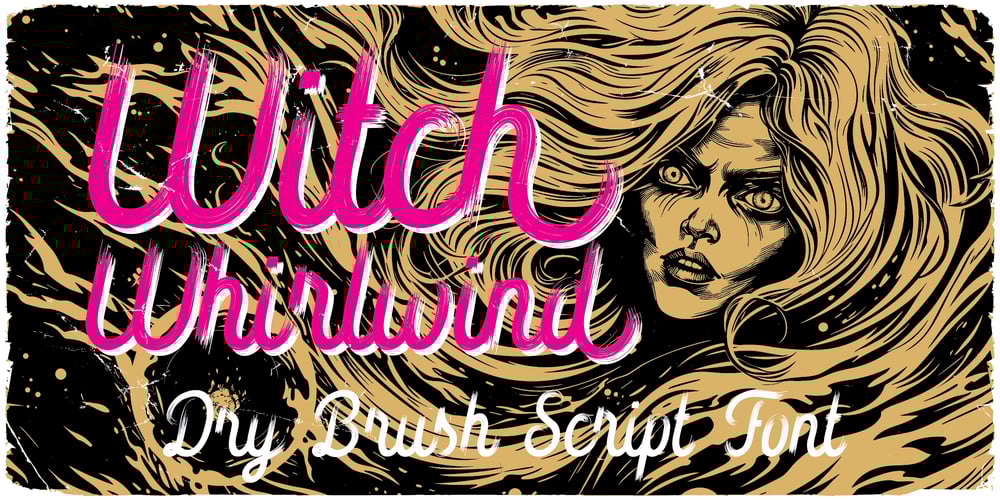
Witch Whirlwind Font Family was designed by Oleg Voznyy and published by Vozzy. Witch Whirlwind contains 1 styles and family package options. Description: Step into the hauntingly nostalgic world of 80s horror films with ‘Witch Whirlwind’ a meticulously handcrafted font that channels the chilling essence of vintage movie posters. This font will infuse your designs with the eerie charm and crafty appeal you’ve been seeking.What Awaits You: Unique Font: ‘Witch Whirlwind’ boasts meticulously designed letters, numbers, and additional characters inspired by the spine-tingling aesthetics of the 80s. Multilingual Mastery: Your audience knows no bounds with our font, offering complete multilingual support. Why ‘Witch Whirlwind’ is the Choice for You: Recreate the authentic atmosphere of vintage horror films with this unique font. Elevate your poster designs, t-shirt graphics, and logos with an unmistakable crafty touch. Seamlessly adapt to different projects with multilingual support and versatile font formats. Seize this opportunity to infuse your designs with the spirit of the 80s. Download ‘Witch Whirlwind’ now and start creating captivating visuals.